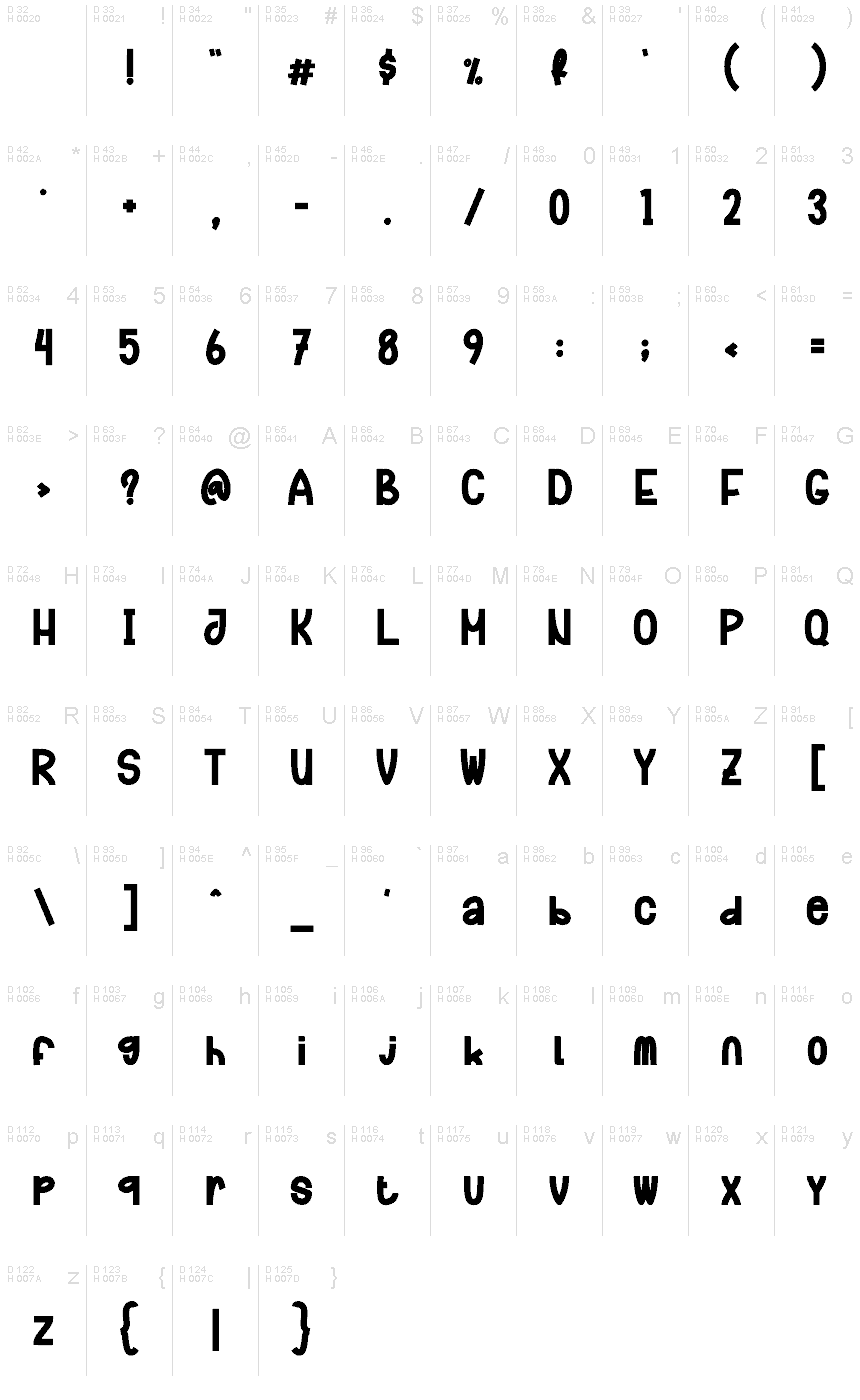
Months Summer
Months Summer font is a free handwritten font designed by Scratchones. It presents mostly round and straight letters with some having stem extensions giving it a quirky vibe. The friendly appearance makes an idea of the vintage-retro inspirations that brought this beautiful font to life.
Use it in designing titles, headers, book covers, posters, T-shirt designs, notepads’ covers, notebooks’ covers among many others. Other suitable design projects include branding and packaging design, social media ads graphics as well as typography art.